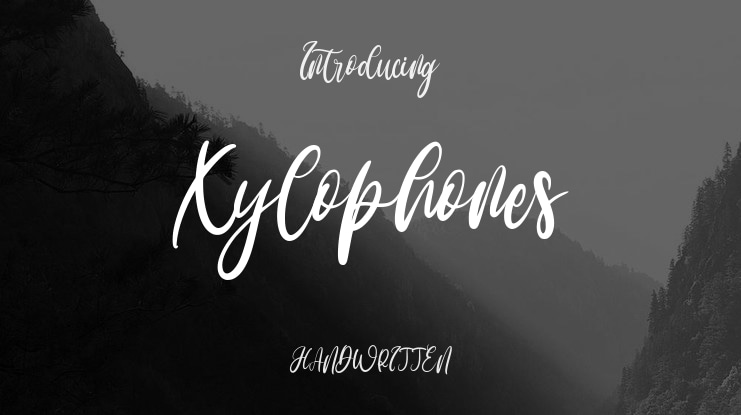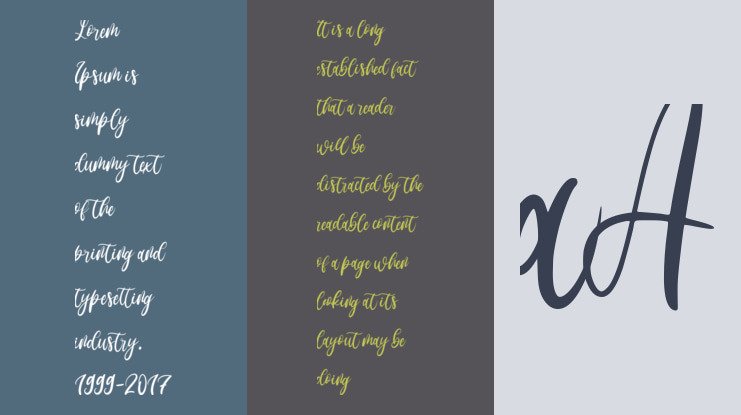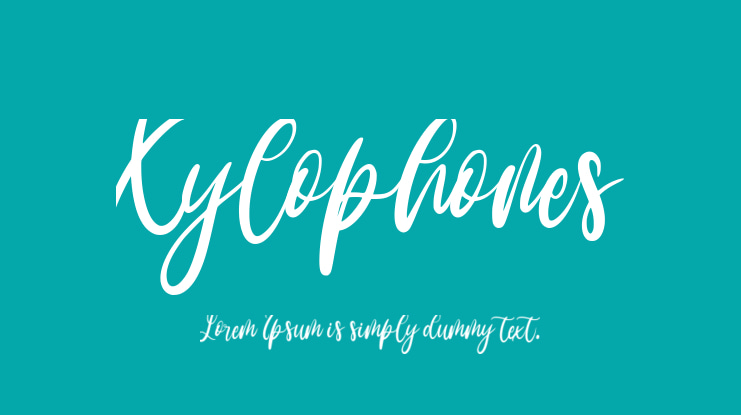
Xylophones Font
Introducing Xylophones, an enchanting handwritten font that captures the essence of romance, making it perfect for your Valentine's season projects. Easily elevate your logos, branding, and inspirational quotes with its distinctive and timeless allure.
This exquisite typeface is PUA encoded, granting you effortless access to all of its glyphs and swashes. With Xylophones, your Valentine's day design projects just became much simpler and visually pleasing.